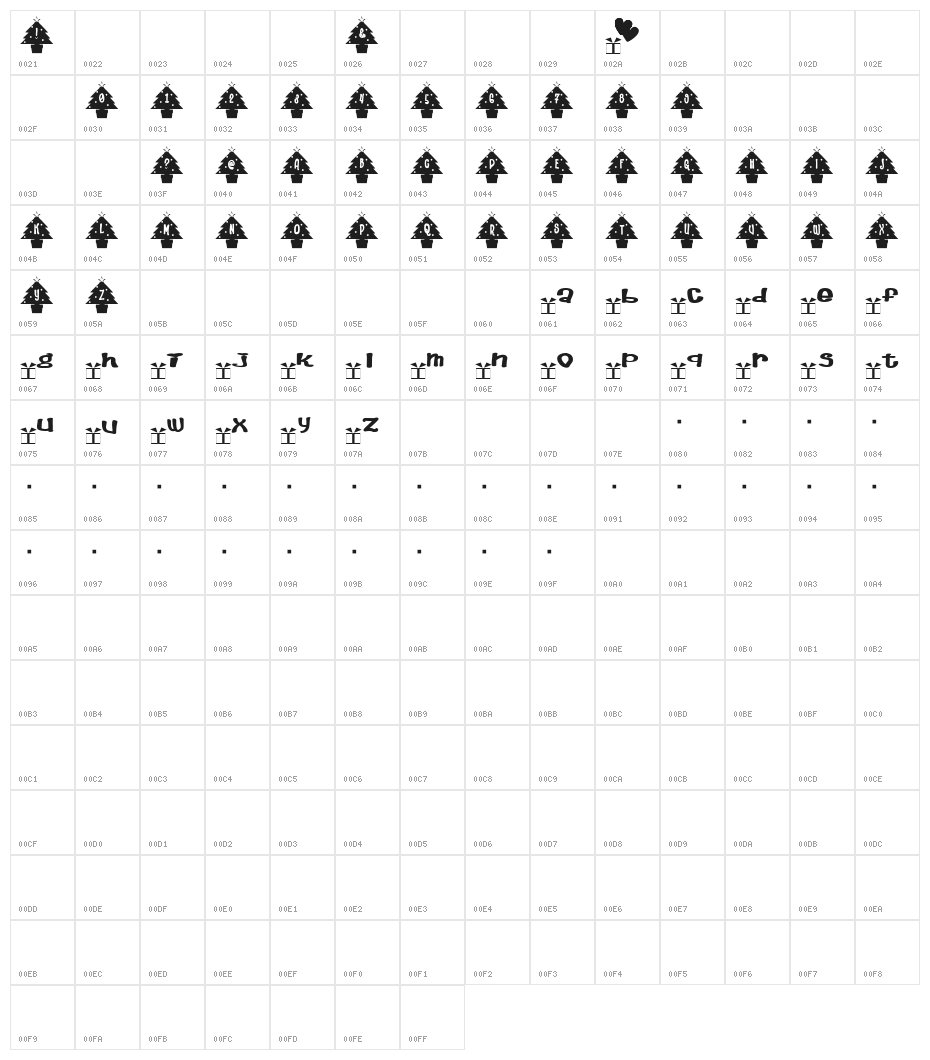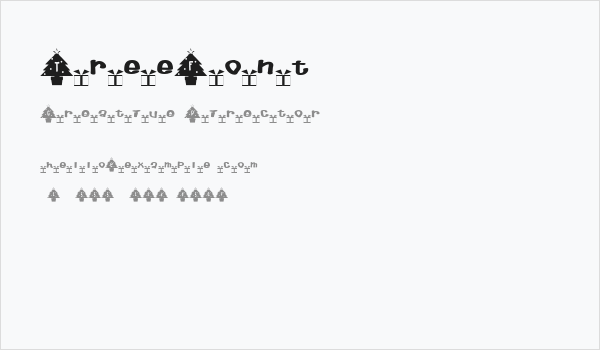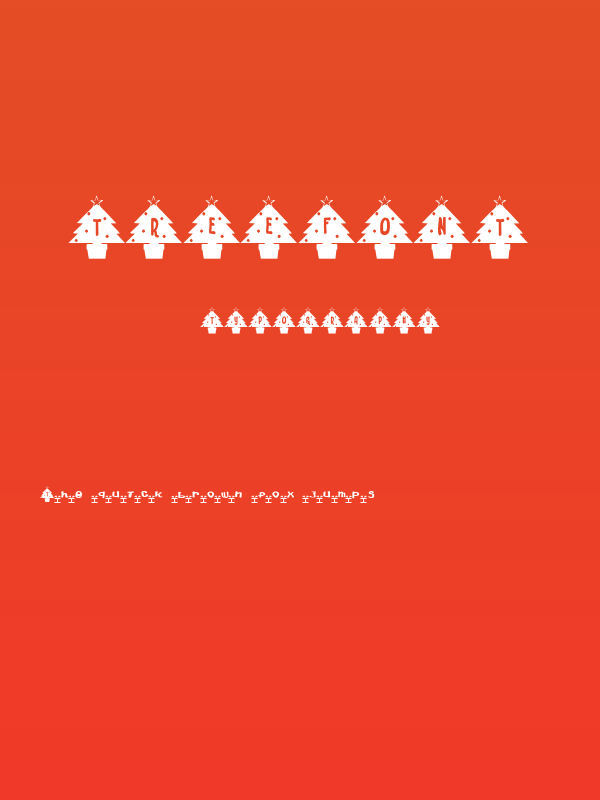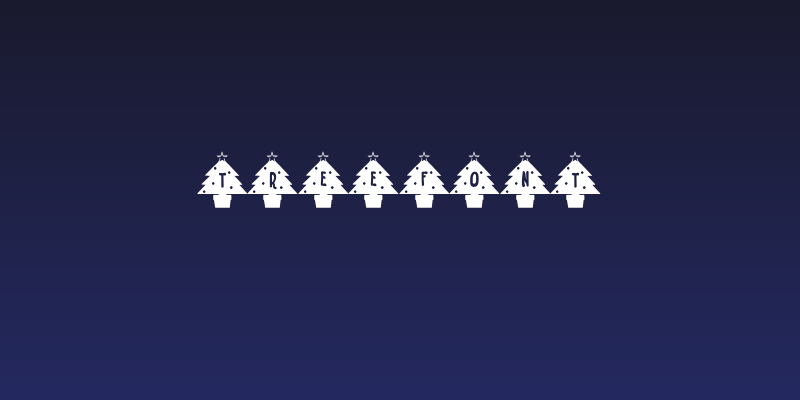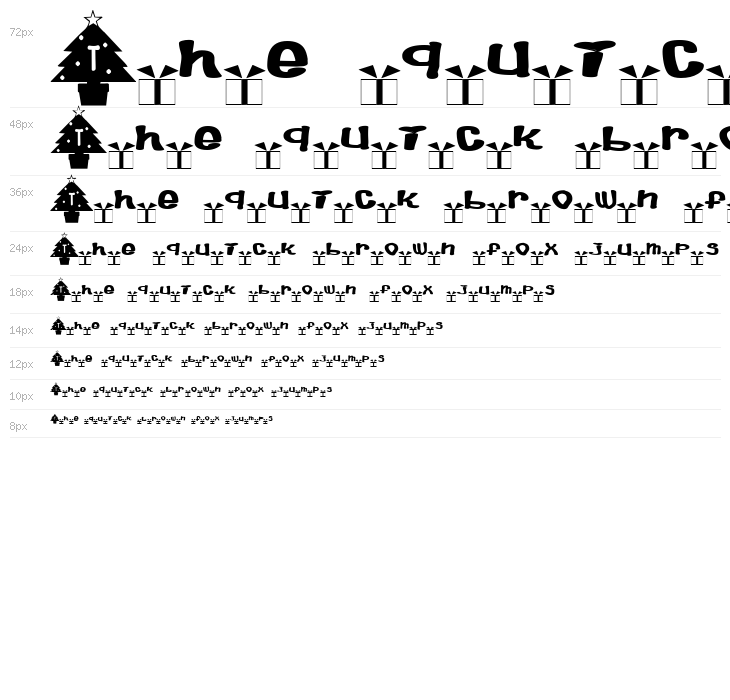
TreeFont Font
TreeFont Description
This playful and festive font features uppercase letters designed as Christmas trees, complete with stars on top and tree bases. The lowercase letters are styled with a whimsical touch, each accompanied by a small gift box, adding to the holiday theme. The numbers are also tree-shaped, maintaining consistency with the uppercase letters. Special characters include a tree-shaped exclamation mark and ampersand, along with a heart and gift box symbol. This font is ideal for holiday-themed projects, offering a unique and decorative style that captures the spirit of Christmas.
| Proposed Projects | Ideal for holiday cards, festive banners, Christmas event invitations, and seasonal marketing materials. |